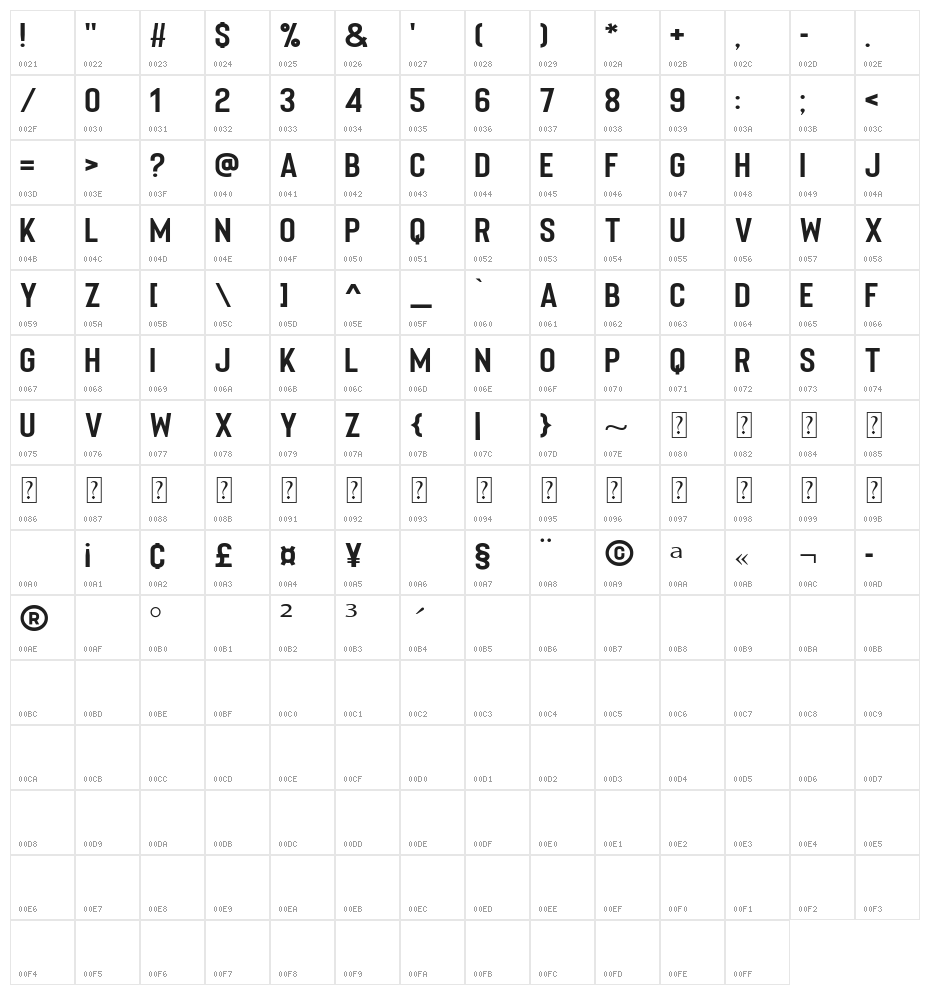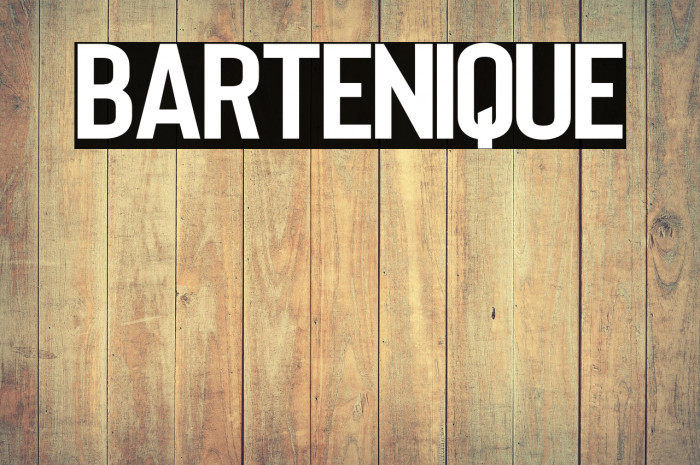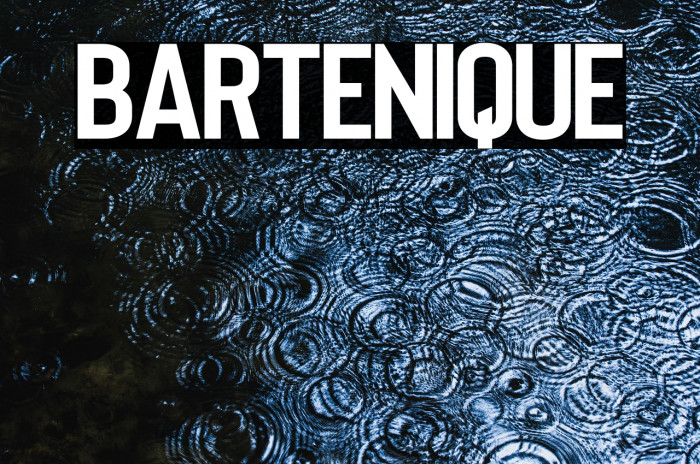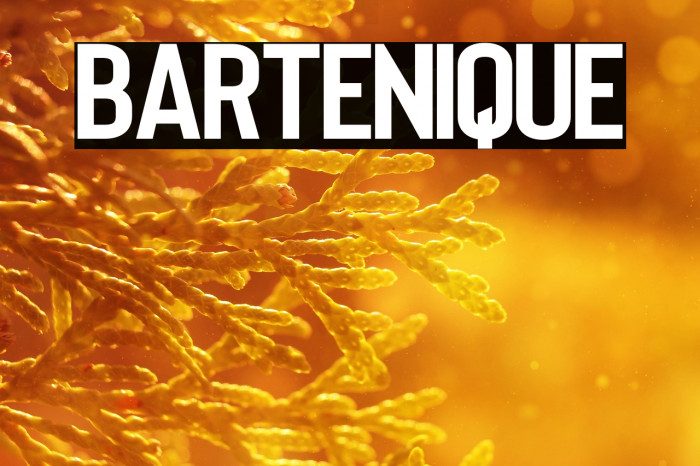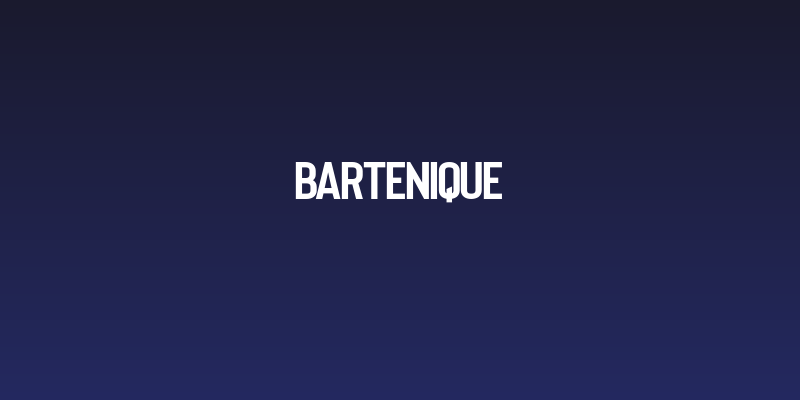
Bartenique Font
Bartenique Description
This font features a bold and impactful design with strong geometric shapes and clean lines. The uppercase letters are uniform in height, creating a cohesive and structured appearance. The numerals are equally bold, maintaining the same visual weight as the letters. Special characters are designed with the same attention to detail, ensuring consistency across all glyphs. The overall design is modern and assertive, making it suitable for projects that require a strong visual presence.
| Proposed Projects | Ideal for branding, headlines, posters, and any design requiring a strong, impactful typeface. |